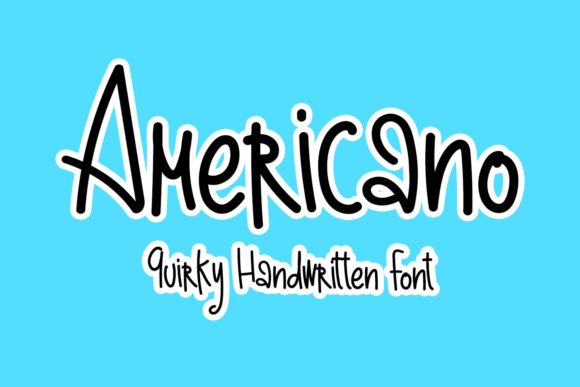
The Americano Font: A Cute and Quirky Companion for Creatives
I’ll never forget the time I was working on a greeting card project for a friend’s birthday. I had the design all laid out, but something was missing – the perfect font. I scrolled through page after page of Google Fonts, but nothing seemed quite right. That’s when I stumbled upon Americano, a cute and quirky handwritten font that instantly captured the playful spirit of the occasion. Whether you’re a designer, crafter, or creative hobbyist, Americano is a fantastic addition to your font library.
What I Love About Americano ✨
- ✅ Unique Character: Americano has a distinct, hand-crafted feel that sets it apart from more generic fonts.
- ✅ Versatility: This font is perfect for a wide range of projects, from digital designs and presentations to crafting and greeting cards.
- ✅ Easy to Read: Despite its quirky nature, Americano remains surprisingly legible, even at smaller sizes.
- ✅ OpenType Features: Americano comes with a range of OpenType features, including stylistic alternates and glyphs, which can add an extra layer of creativity to your designs.
- ⚠️ Limited Formality: Americano’s playful nature makes it less suitable for formal or professional projects that require a more serious tone.
- ⚠️ Overuse Can Be Distracting: While Americano is charming, using it excessively or in large blocks of text can be distracting and overwhelming.
The Story Behind Americano
Americano was designed with the intention of capturing the carefree spirit of a summer vacation. Imagine strolling through a quaint American town, surrounded by vintage signs and handwritten notes – that’s the inspiration behind this font. The designer aimed to create a typeface that felt both nostalgic and fresh, perfect for creatives looking to add a personal touch to their work.
Q: Is Americano suitable for body text?
A: While Americano is easy to read, it’s primarily designed for headings and short paragraphs. For longer body text, you might want to pair it with a more traditional font for better readability.